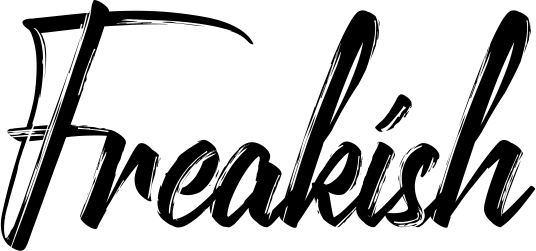
Freakish Font
Brush fonts come in different forms and designs and this one has brush-stroke elements and a continuous effect in its characters. You can use it to write book titles, product names, theater flyers, stage designs, movie names, and shop signs. This font doesn’t have numerals and punctuation.